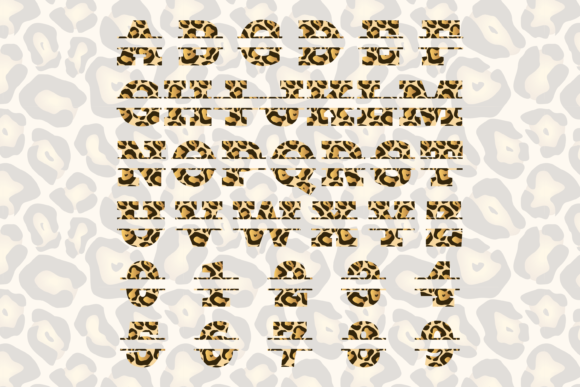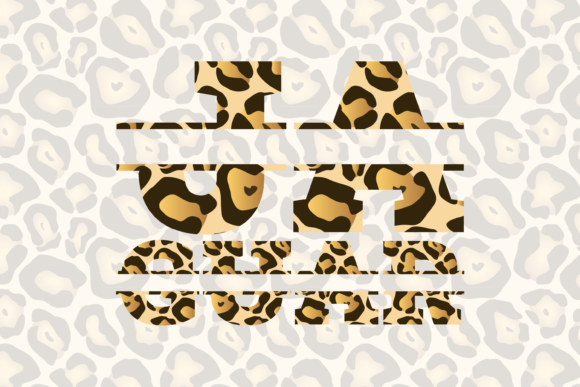
Introduction to Jaguar Split Font
Have you ever found yourself stuck in the middle of a creative project, desperately searching for the perfect design element to elevate your work? You’ve scoured the internet, browsed through design stores, and scrolled through social media, but nothing seems quite right. That’s when you stumble upon something truly special – the Jaguar Split Font.
This adorable font is more than just a pretty face; it’s a game-changer for designers and crafty enthusiasts alike. With its high-quality design and transparent background, it’s the perfect addition to any project. Whether you’re working on a custom design, creating DIY crafts, or just need a lovely touch for your next creation, the Jaguar Split Font is an invaluable design resource.
Jaguar Split Font
- High-quality design resource with a unique, creative split font style.
- Transparent background for easy integration into any design project.
- Perfect for creative projects that require a bold, eye-catching font.
Honest Review: Jaguar Split Font
I recently had the opportunity to work with the Jaguar Split Font on a creative project and was impressed with its overall quality. The font has a unique, edgy design that adds a touch of sophistication to any design.
Here are some aspects where the Jaguar Split Font truly shines:
- ✨ High-quality design: The font is well-designed and looks great on both light and dark backgrounds.
- ✨ Transparent background: The font is designed to work seamlessly with transparent backgrounds, making it perfect for graphic designers who need flexibility.
- ⚠️ Limited font weights: The font only comes in a few weights, which may limit its versatility for certain design projects.
- ⚠️ No italic or oblique styles: The font only comes in regular style, which may not be suitable for projects that require italic or oblique text.
Overall, I was impressed with the Jaguar Split Font and would definitely consider using it on future creative projects. Its unique design and high-quality look make it a valuable design resource, even with its limitations.
Tips for Getting the Most Out of Jaguar Split Font
To get the most out of the Jaguar Split Font, consider using it in combination with other design elements to create a cohesive look. You can also experiment with different font sizes and colors to find the perfect balance for your design.
Common Use Cases for Jaguar Split Font
The Jaguar Split Font is particularly well-suited for use in creative projects that require a high level of visual sophistication, such as branding, advertising, and editorial design. It’s also a great resource for designers who want to add a touch of elegance to their designs.